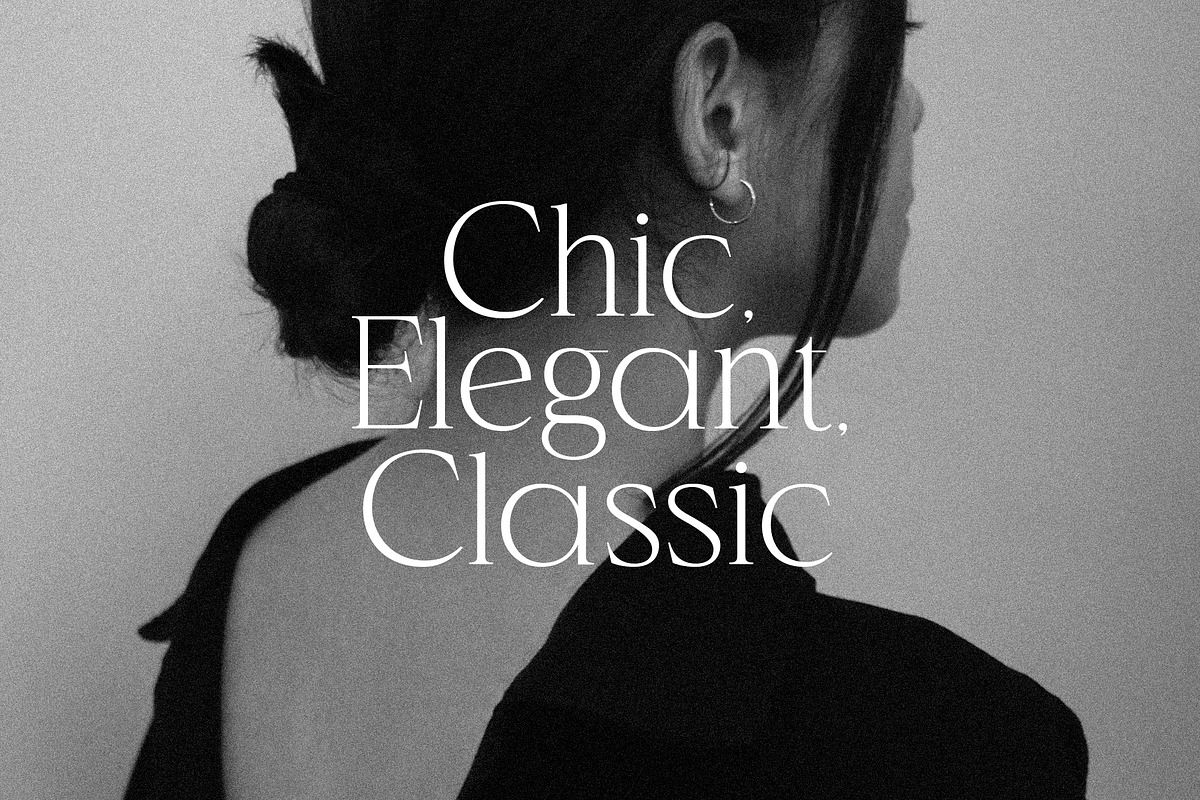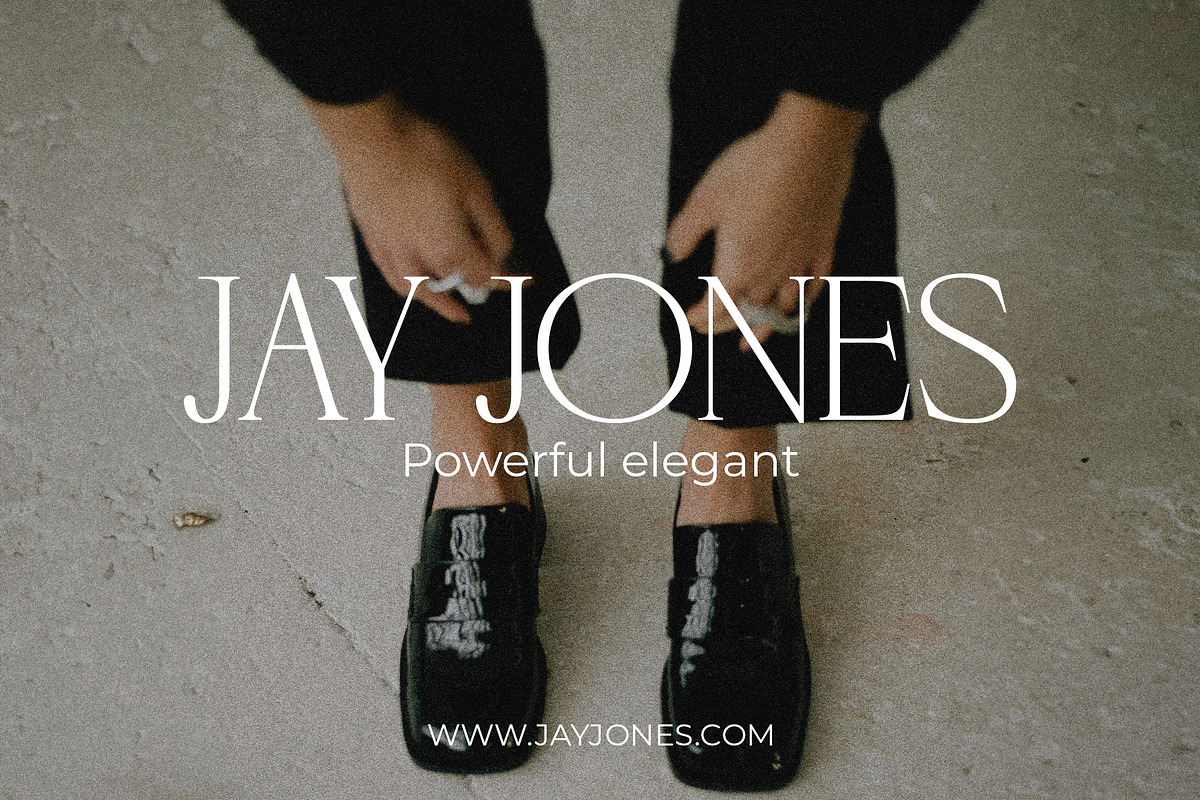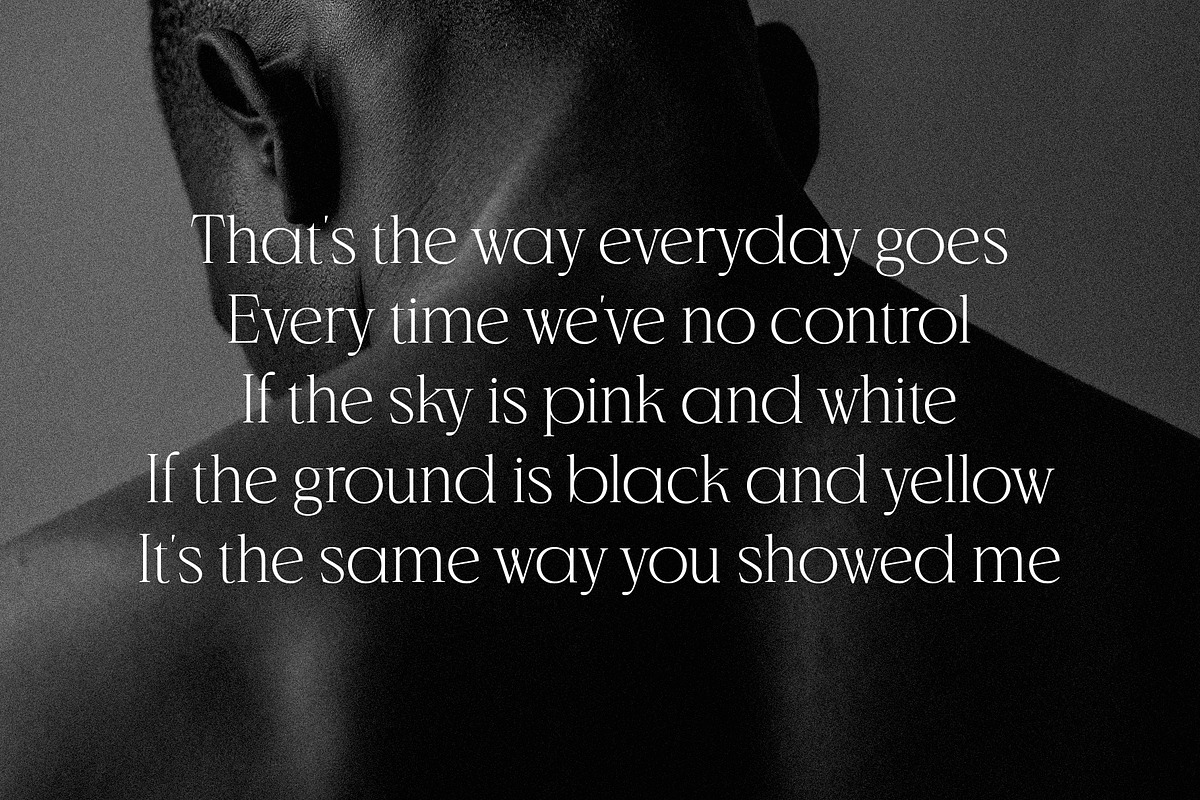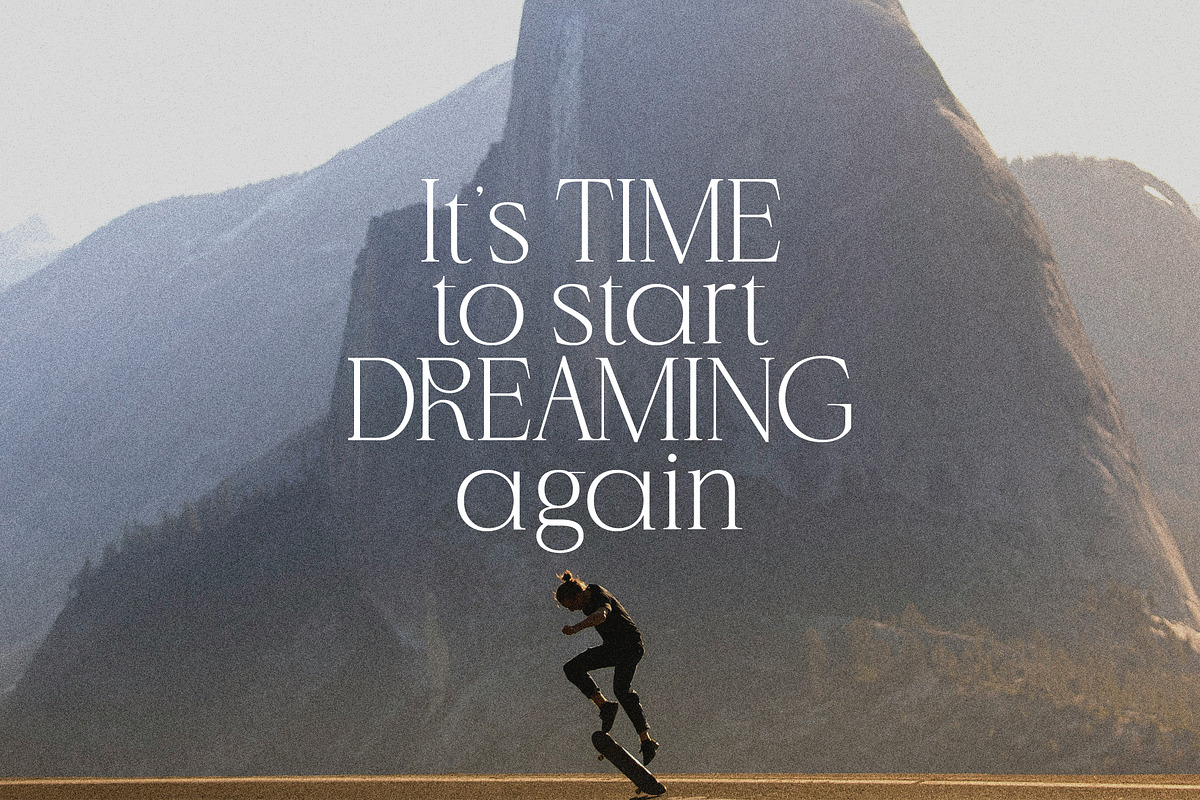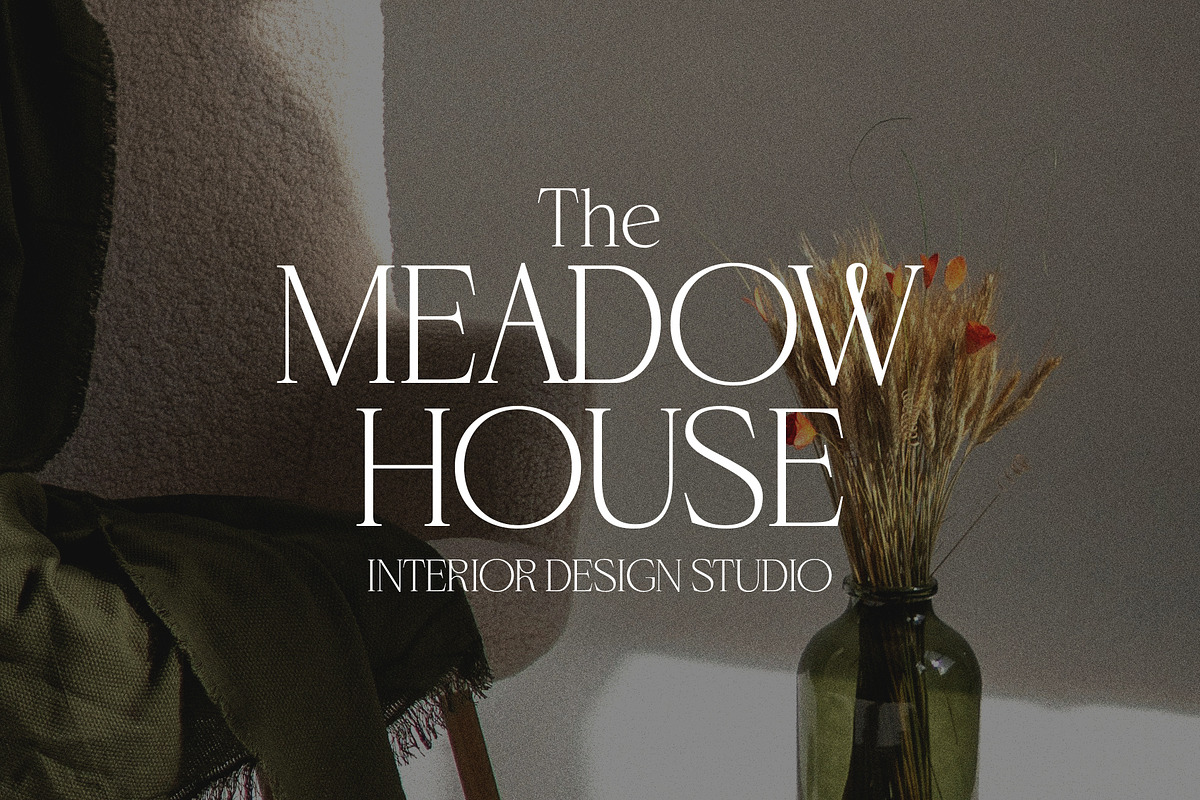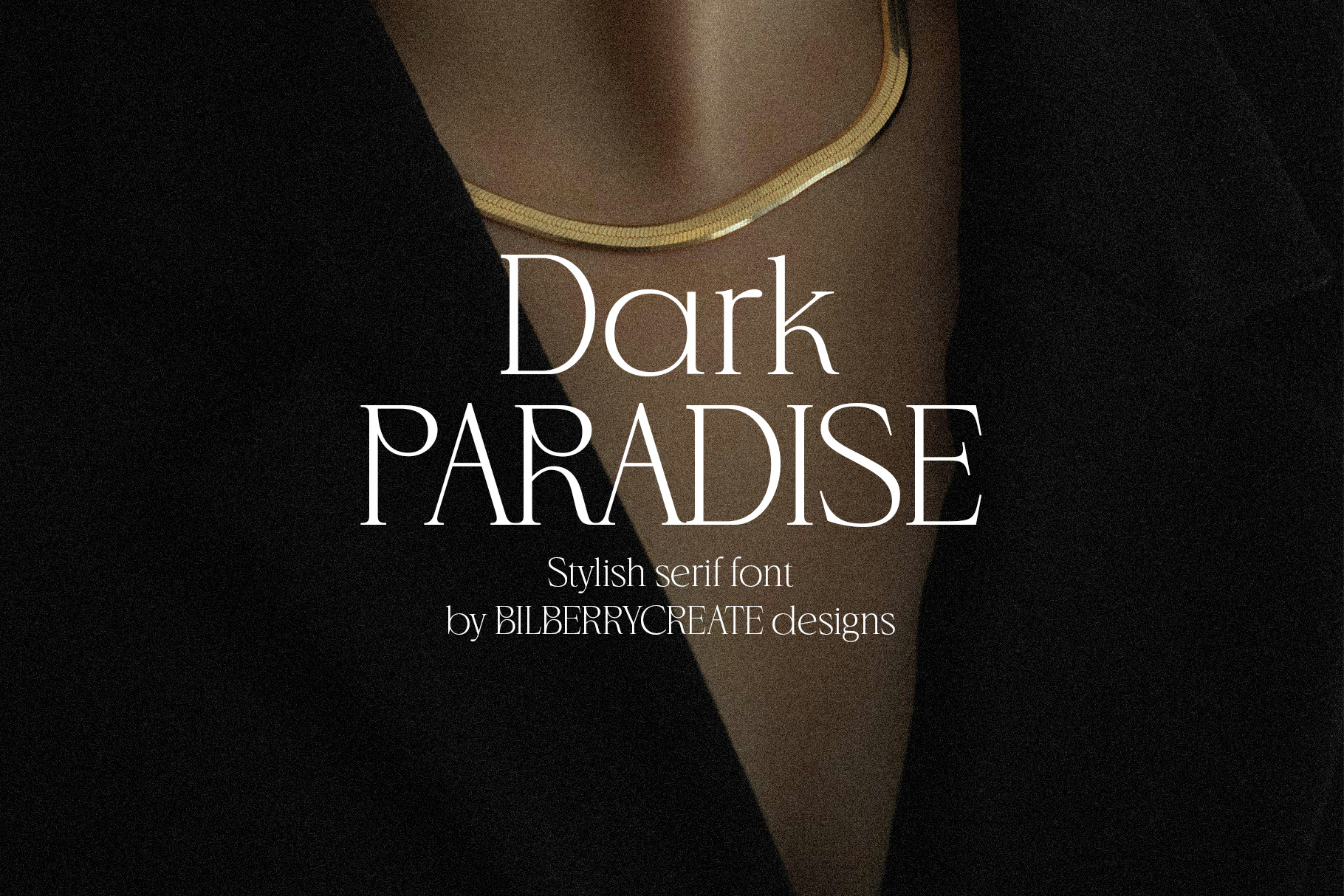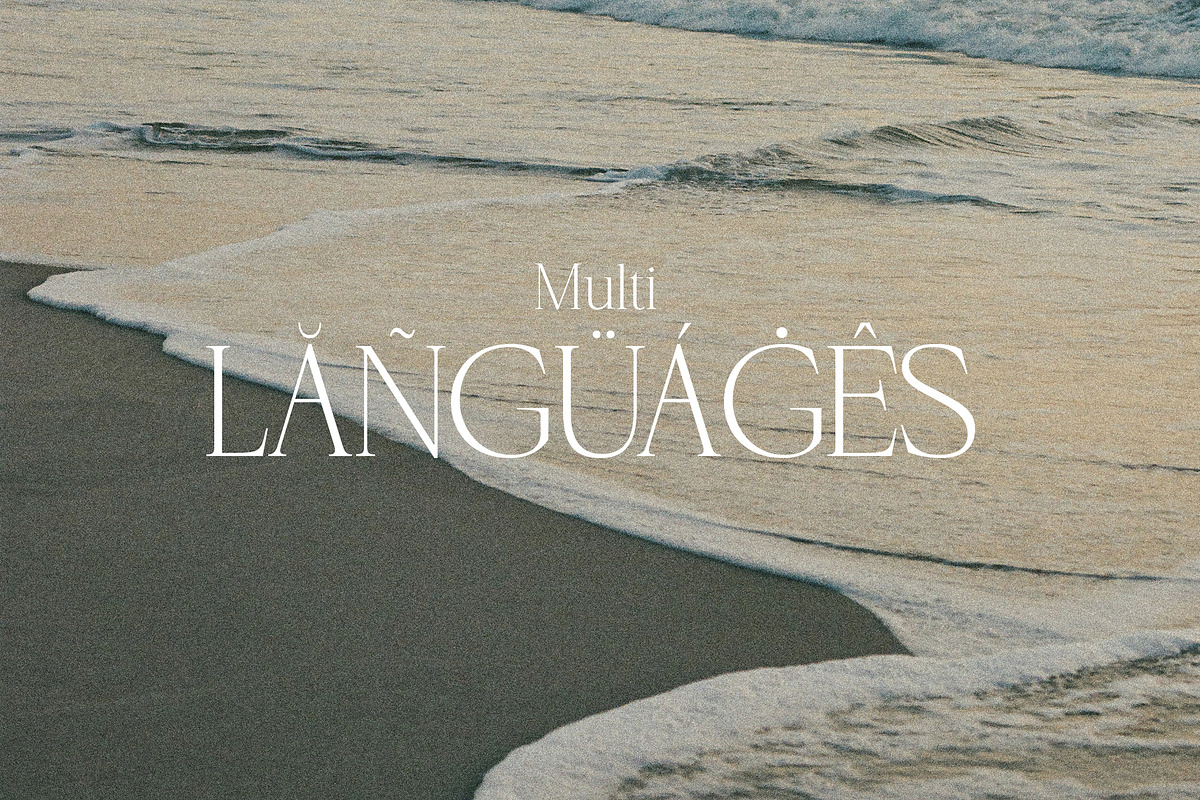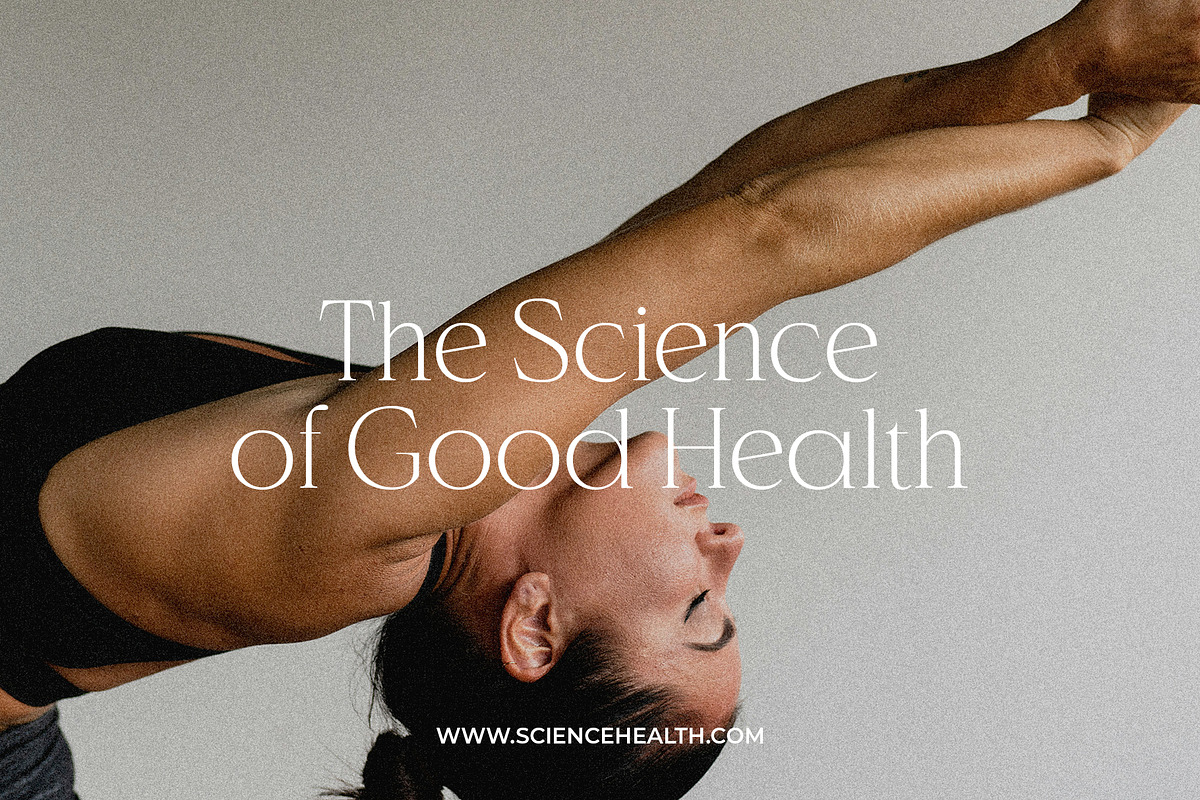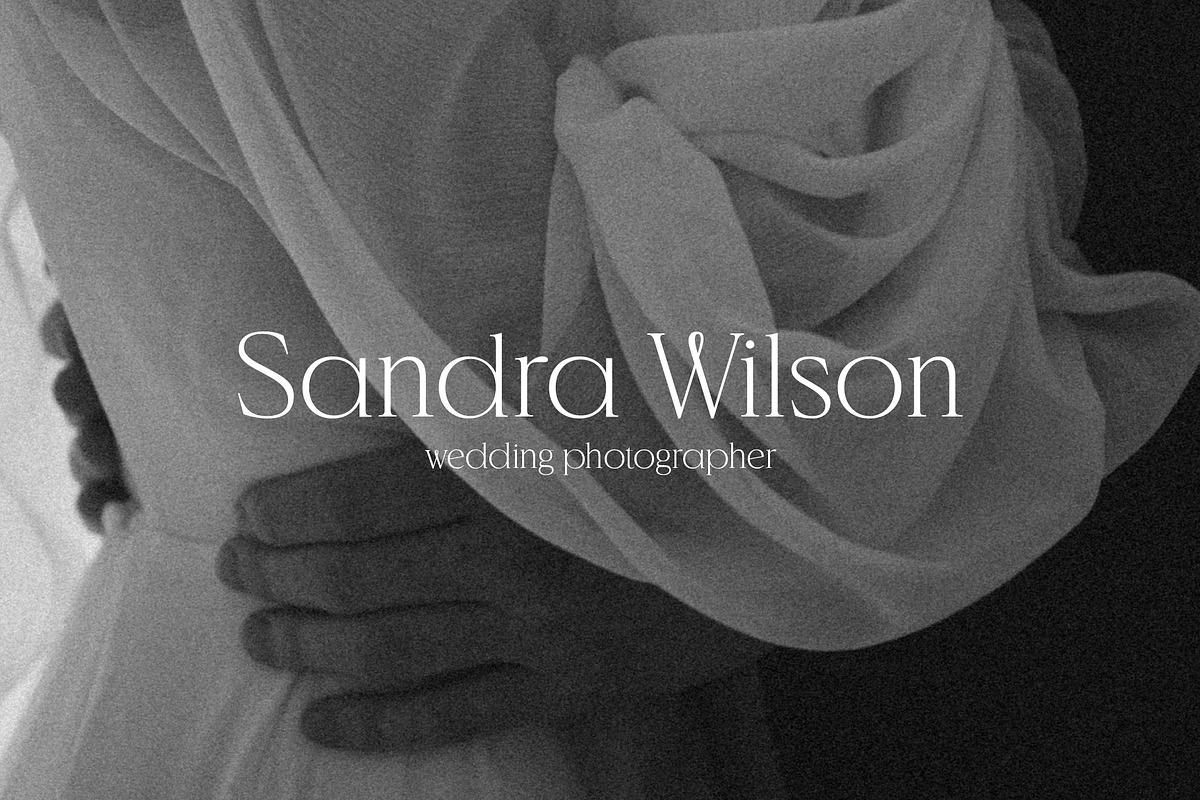
Dark Paradise - Stylish serif font!
This pack can be used to create anything as you wish, logos invitation cards, make scrapbooking, wedding cards, birthday cards, home decor, packaging holiday gifts, party decorations, print on fabrics and so much more.